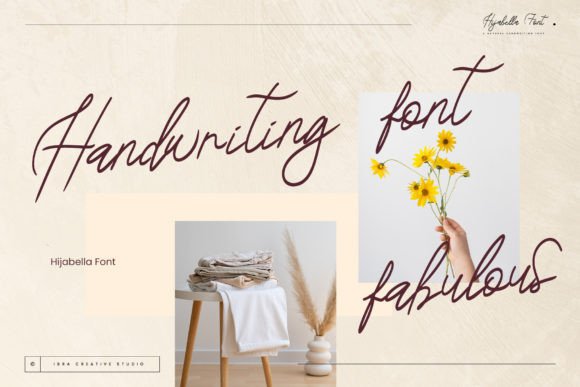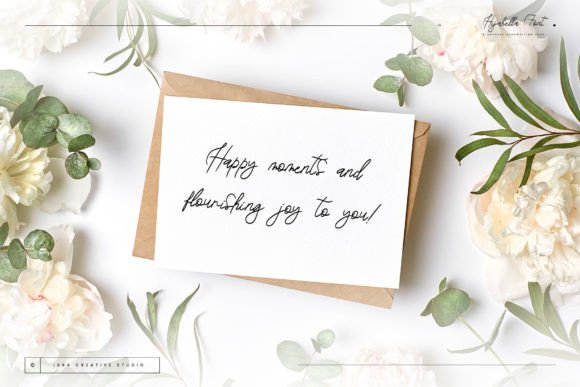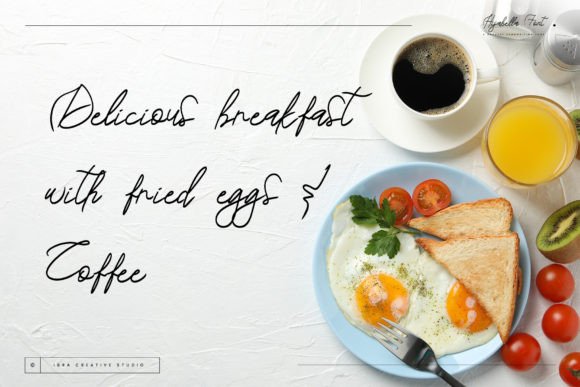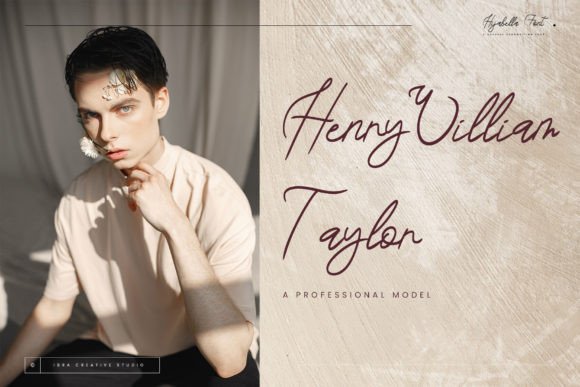
Introduction to Hijabella Font
Remember the excitement of receiving a handwritten letter in the mail, or the satisfaction of signing a heartfelt card with a flourish? That same sense of authenticity and personal touch can now be brought to your digital designs with the Hijabella Font. This enchanting natural handwriting font is the perfect addition to any creative project, offering a unique blend of elegance and imperfection.
As a valuable design resource, the Hijabella Font allows you to add a touch of human warmth to your digital creations, from website headers to social media graphics. Its transparent background and high quality design make it an ideal choice for designers seeking a free download that doesn’t compromise on aesthetic appeal.
Key Features of Hijabella Font
- High-quality design resource ideal for creative projects, offering a unique and elegant aesthetic.
- Comes in a transparent background, allowing for versatility in design applications.
- Unique characteristics: cursive, script, and handwritten styles, making it perfect for adding a personal touch to designs.
Honest Review: Hijabella Font
I recently stumbled upon the Hijabella Font and was excited to give it a try in my current creative project. As a designer, I’m always on the lookout for high-quality design resources that can elevate my work.
One of the standout features of the Hijabella Font is its transparent background, which makes it incredibly versatile and easy to use. I was able to quickly integrate it into my design and was impressed with the level of detail and sophistication it brought to the table.
Here are some of the things that work well with the Hijabella Font:
- ✨ High-quality design that looks great in both digital and print applications
- ✨ Transparent background for easy integration into designs
One limitation I did encounter was the limited character set, which may not be suitable for longer blocks of text. Additionally, the font may not be as readable in smaller sizes.
- ⚠️ Limited character set may not be suitable for longer blocks of text
- ⚠️ May not be as readable in smaller sizes
Overall, I’m impressed with the Hijabella Font and would recommend it to designers looking for a high-quality, free design resource. With a little creativity, it can be a great addition to any project.
To get the most out of the Hijabella Font, use it with a transparent background to create a unique design. You can also experiment with different font sizes and styles to achieve the desired effect.
The Hijabella Font is ideal for a variety of creative projects, including logos, branding materials, and digital art. It is also suitable for use in presentations, documents, and other visual content.
Compared to Hijabella Font, Great Vibes Font is more refined and polished, making it suitable for formal events and high-end designs. While Hijabella Font is great for casual, playful projects, Great Vibes Font is better suited for more formal, creative endeavors.
No, the Hijabella Font is a solid-colored font, and it does not have a transparent background. However, you can use image editing software to create a transparent background for the font if needed. This is a common technique used in graphic design to create visually appealing effects.